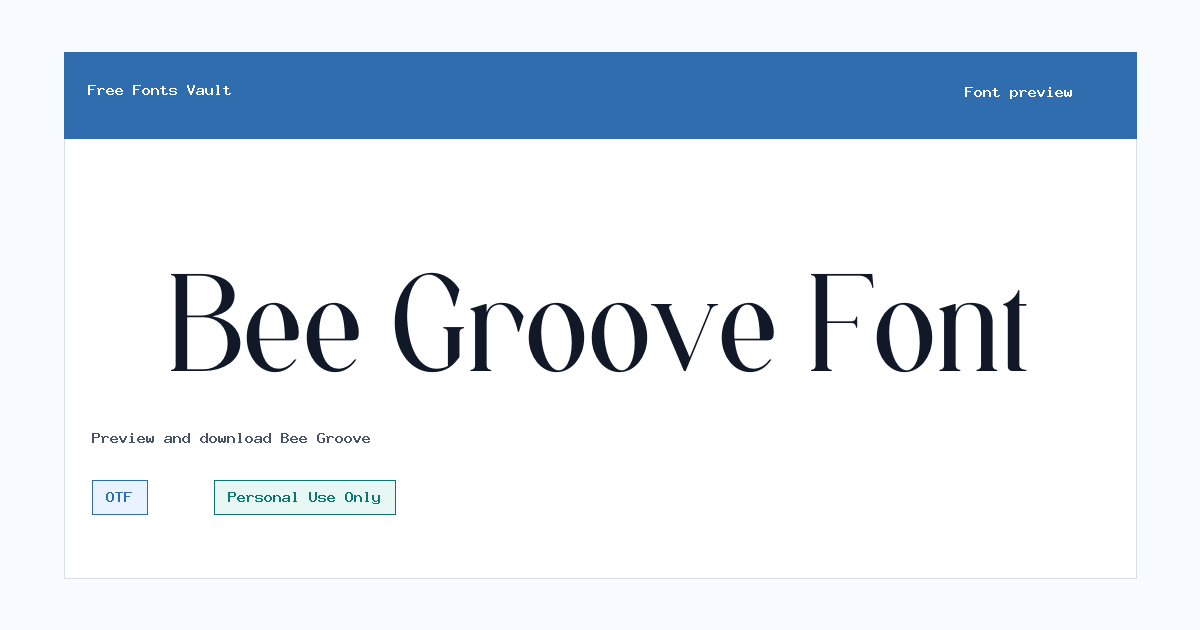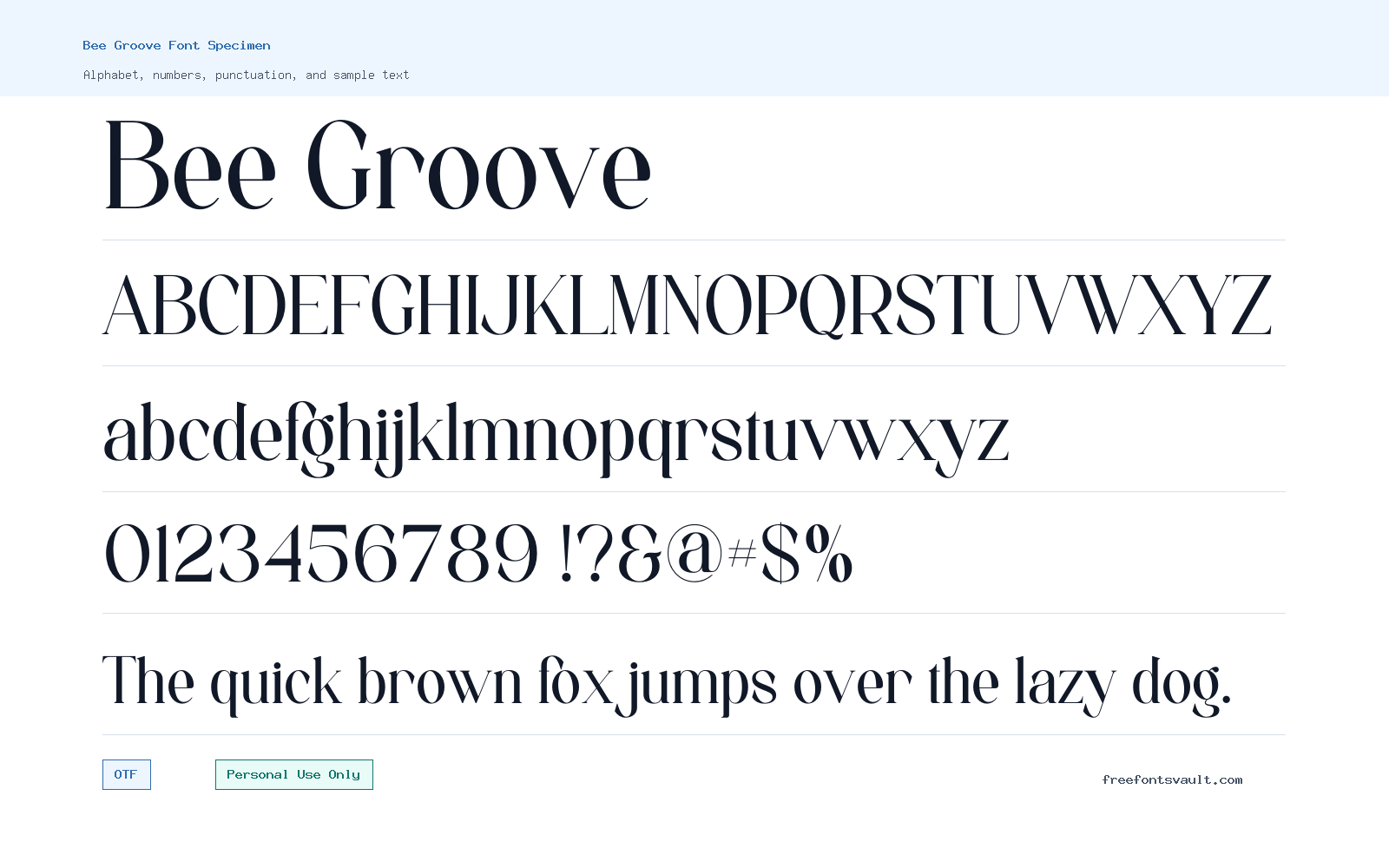
Bee Groove
Bee Groove font.
Bee Groove is a serif font family for personal-use projects, with regular and italic OTF files ready for preview and download. Use the text preview to check its letter shapes, spacing, and tone before choosing it for your design.
Bee Groove comes as a serif typeface with two styles: regular and italic. That makes it more flexible than a single-style display font, especially if you want a main headline style plus a slanted companion for emphasis. The regular style can carry names, titles, short labels, and decorative text, while the italic can help separate subtitles, quotes, captions, or highlighted words without switching to a different family.
- Includes regular and italic styles, giving you a simple two-style family for emphasis and contrast.
- Serif styling makes it a good candidate for title treatments, nameplates, invitations, and decorative text tests.
- Personal posters, mood boards, school graphics, and hobby design drafts.
- Short headings, product mockups, quote layouts, and invitation-style typography.